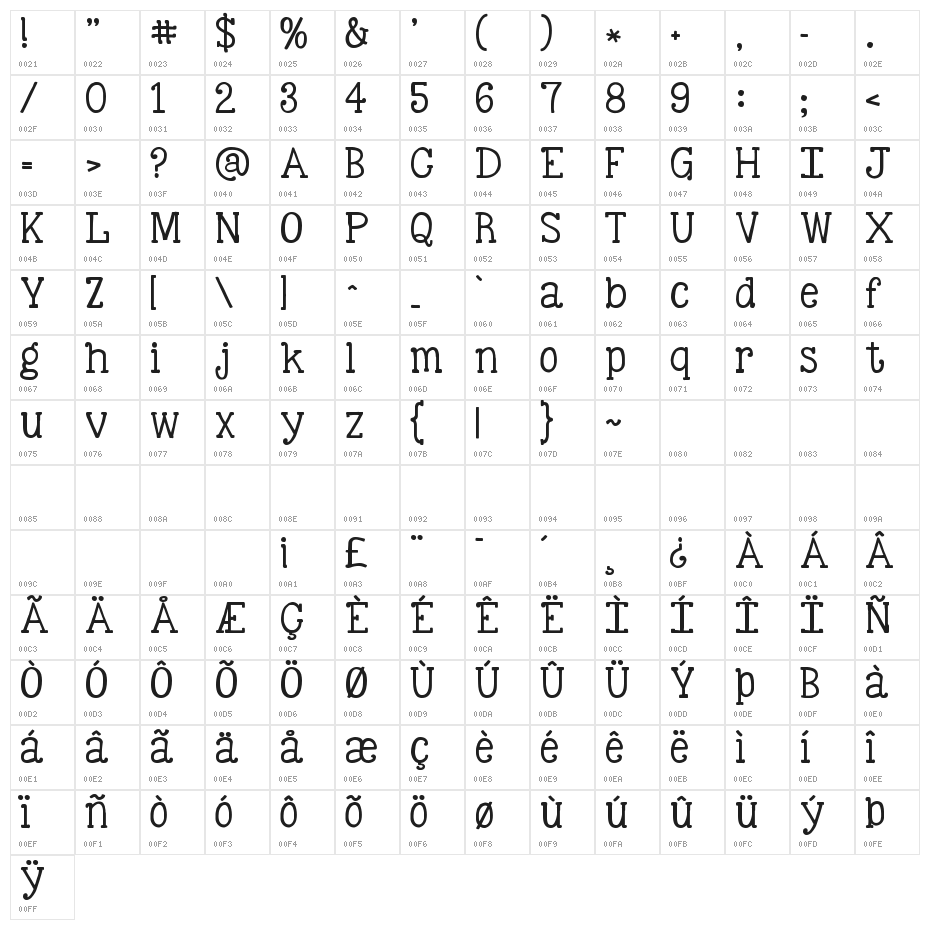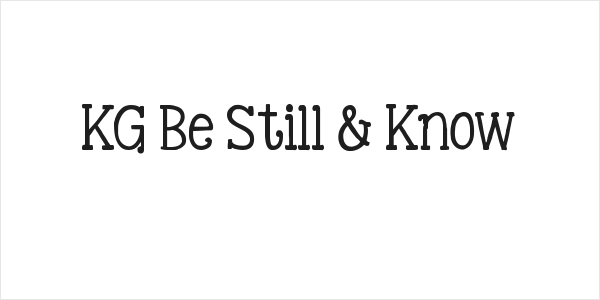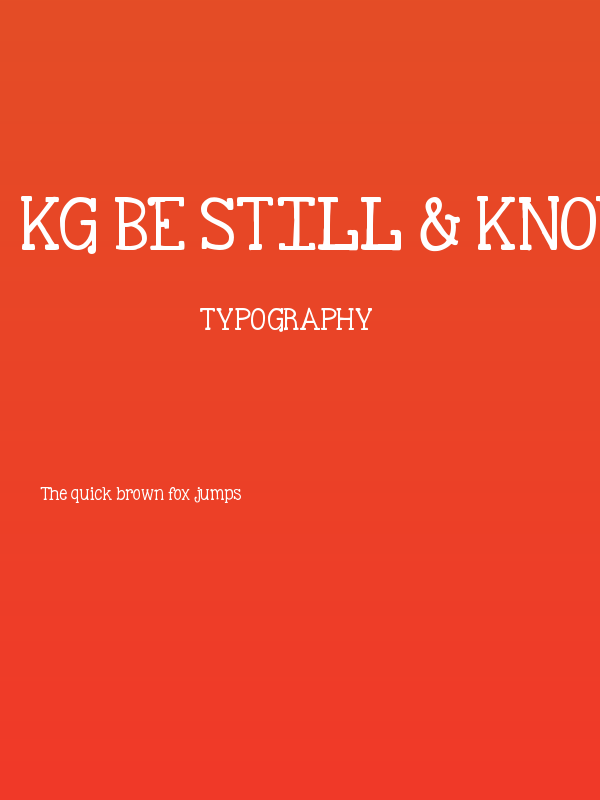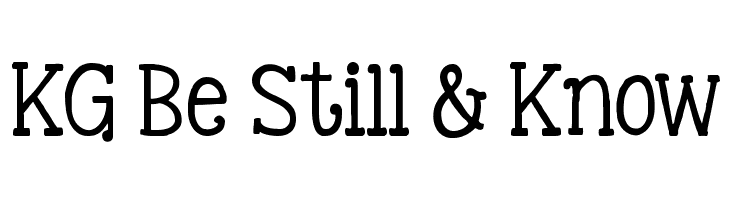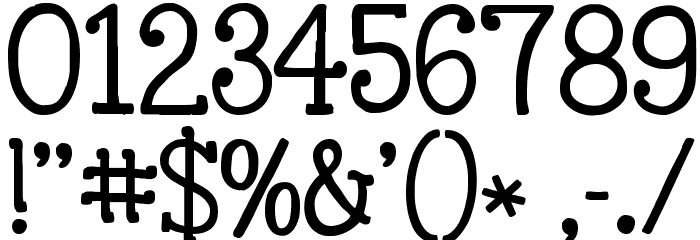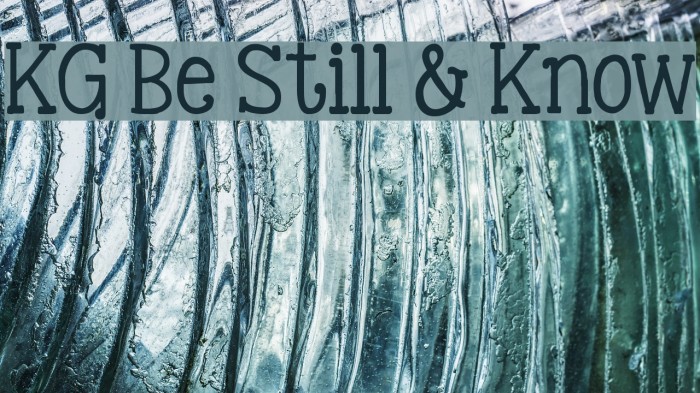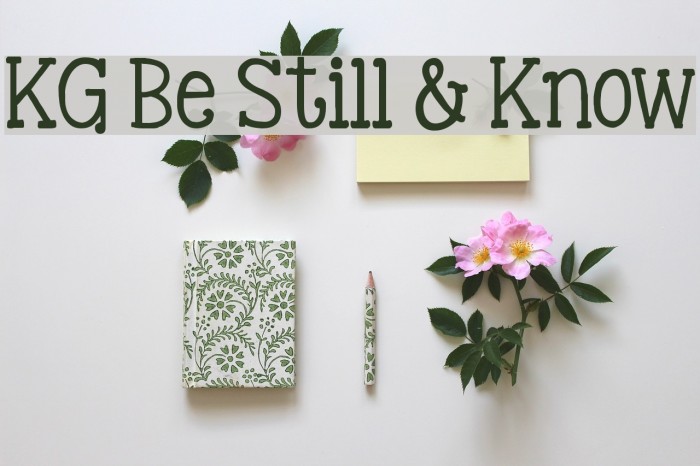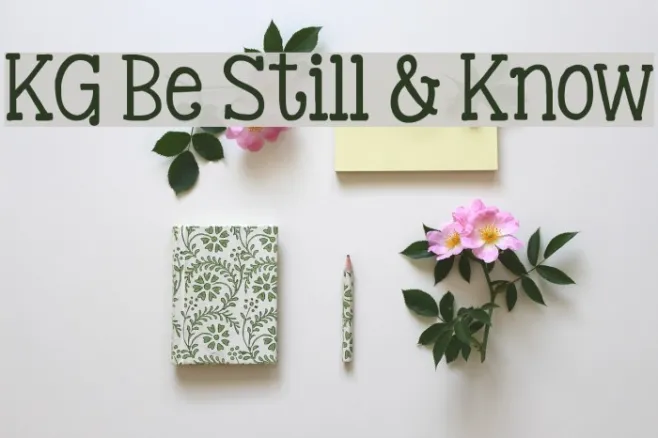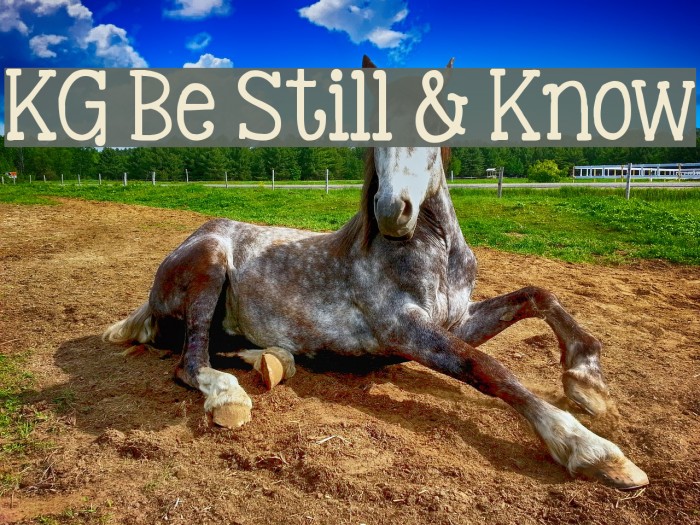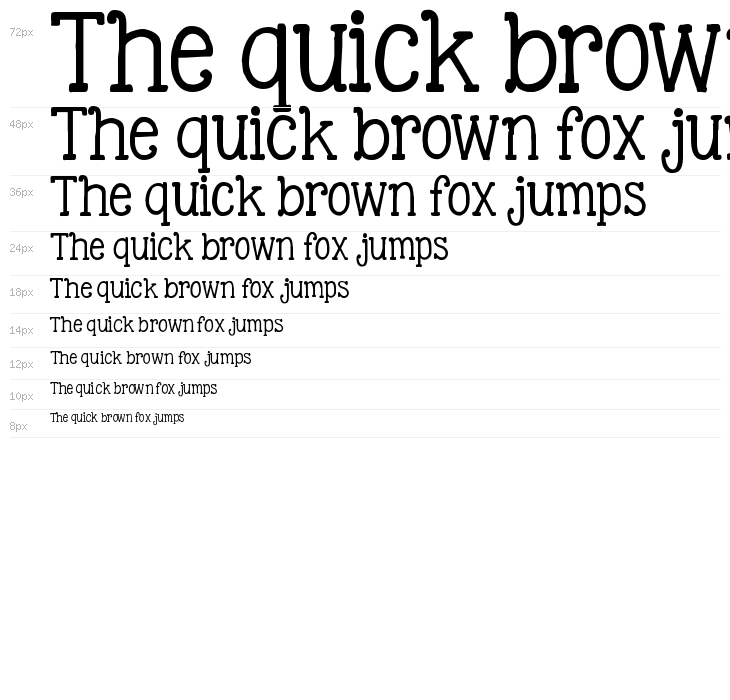
KG Be Still & Know Font
KG Be Still & Know Description
This font features a playful and whimsical design with rounded edges and a slightly uneven baseline, giving it a hand-drawn appearance. The uppercase letters are bold and prominent, while the lowercase letters maintain a consistent style with a touch of quirkiness. The numerals are clear and easy to read, with a similar playful touch. Special characters are well-integrated, maintaining the overall aesthetic. This font is ideal for projects that require a friendly and approachable feel, such as children's books, invitations, or casual branding.
| Proposed Projects | Ideal for children's books, playful invitations, casual branding, and creative projects. |